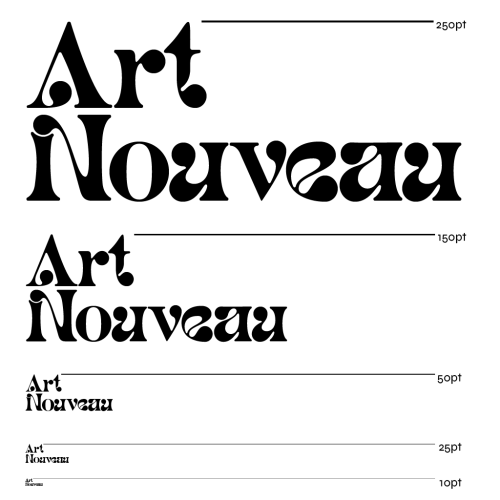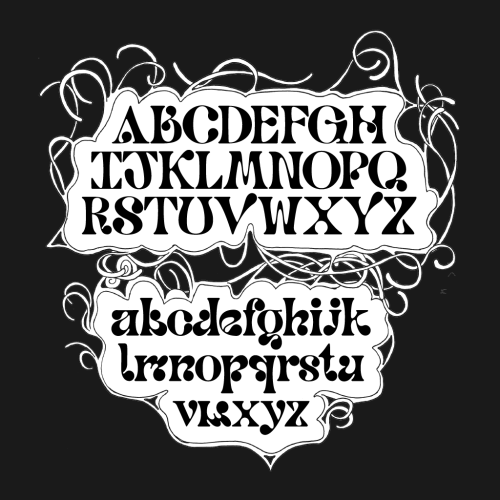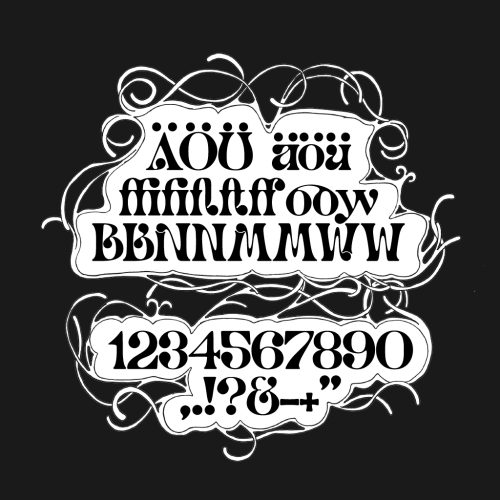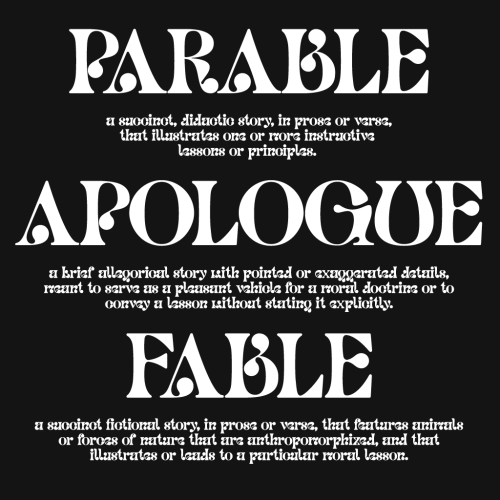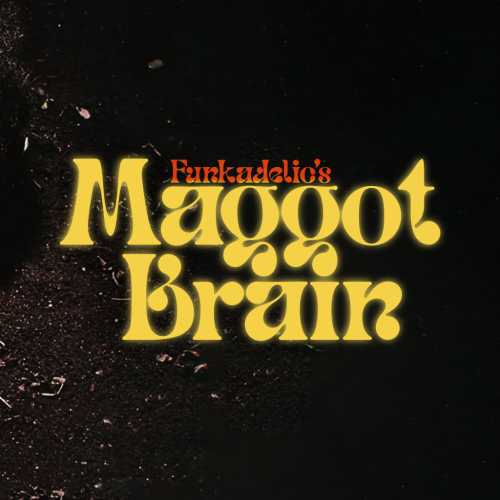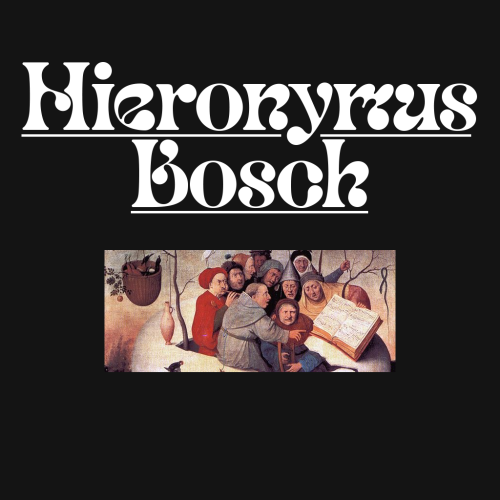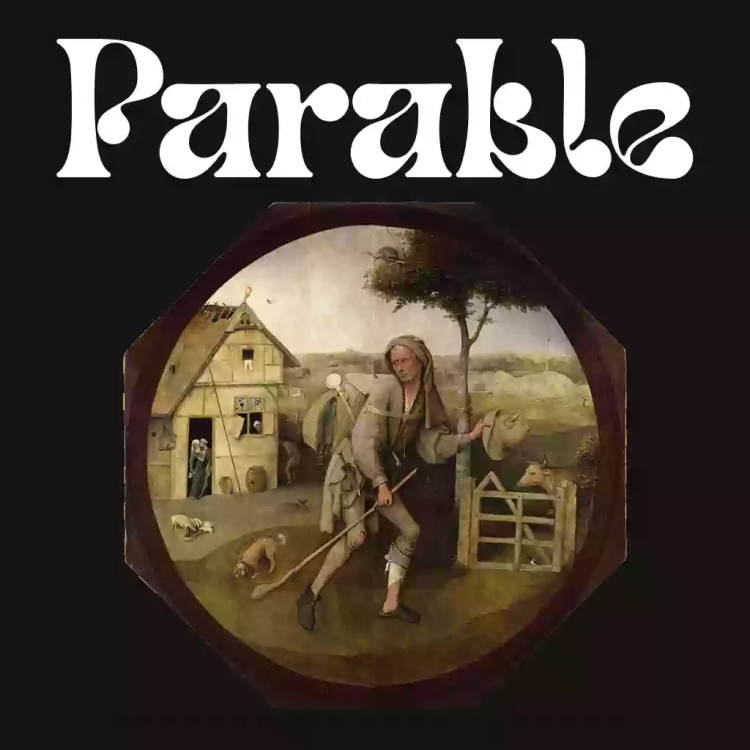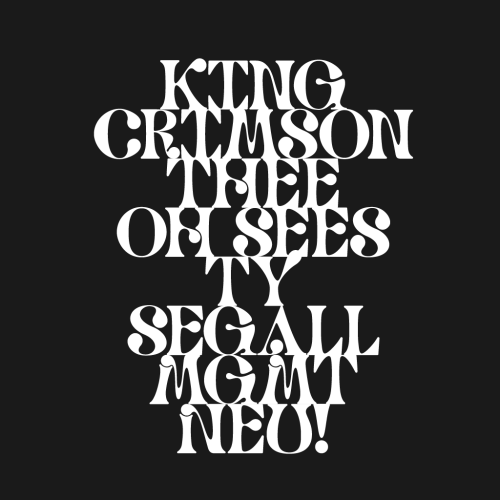
Parable Font
Parable is a thick, inky display font that wears its influences on its sleeves – the Art Nouveau stylings of ‘60s and ‘70s album covers, and the philosophy of fonts like…
Parable is a thick, inky display font that wears its influences on its sleeves – the Art Nouveau stylings of ‘60s and ‘70s album covers, and the philosophy of fonts like Cooper Black and Arnold Bocklin. Parable is to have fun with and embrace the beauty of words and letters.
Where Parable Font works best
Parable Font is built for size: event posters, hero headlines and billboard-style layouts.
High contrast display type like Parable Font reads instantly in thumbnails and motion graphics.
What is Parable Font good for?